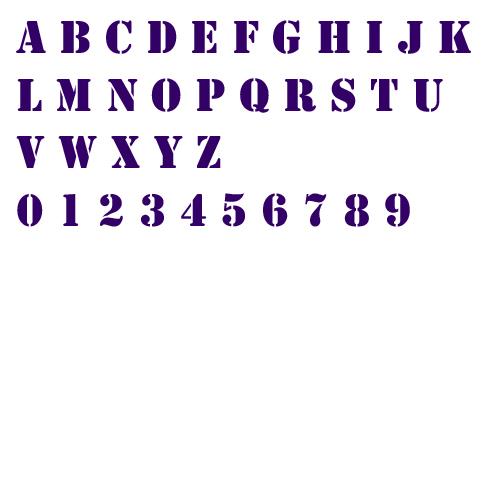
Fireside Threads is happy to present Military machine embroidery font which has This block-style machine embroidery font displays the word 'MILITARY' with a bold, solid appearance, making it suitable for projects on uniforms and tactical gear. Available in PES, DST, and 10 other formats. included. If you would like to view more embroidery fonts and alphabets please search our embroidery fonts page.